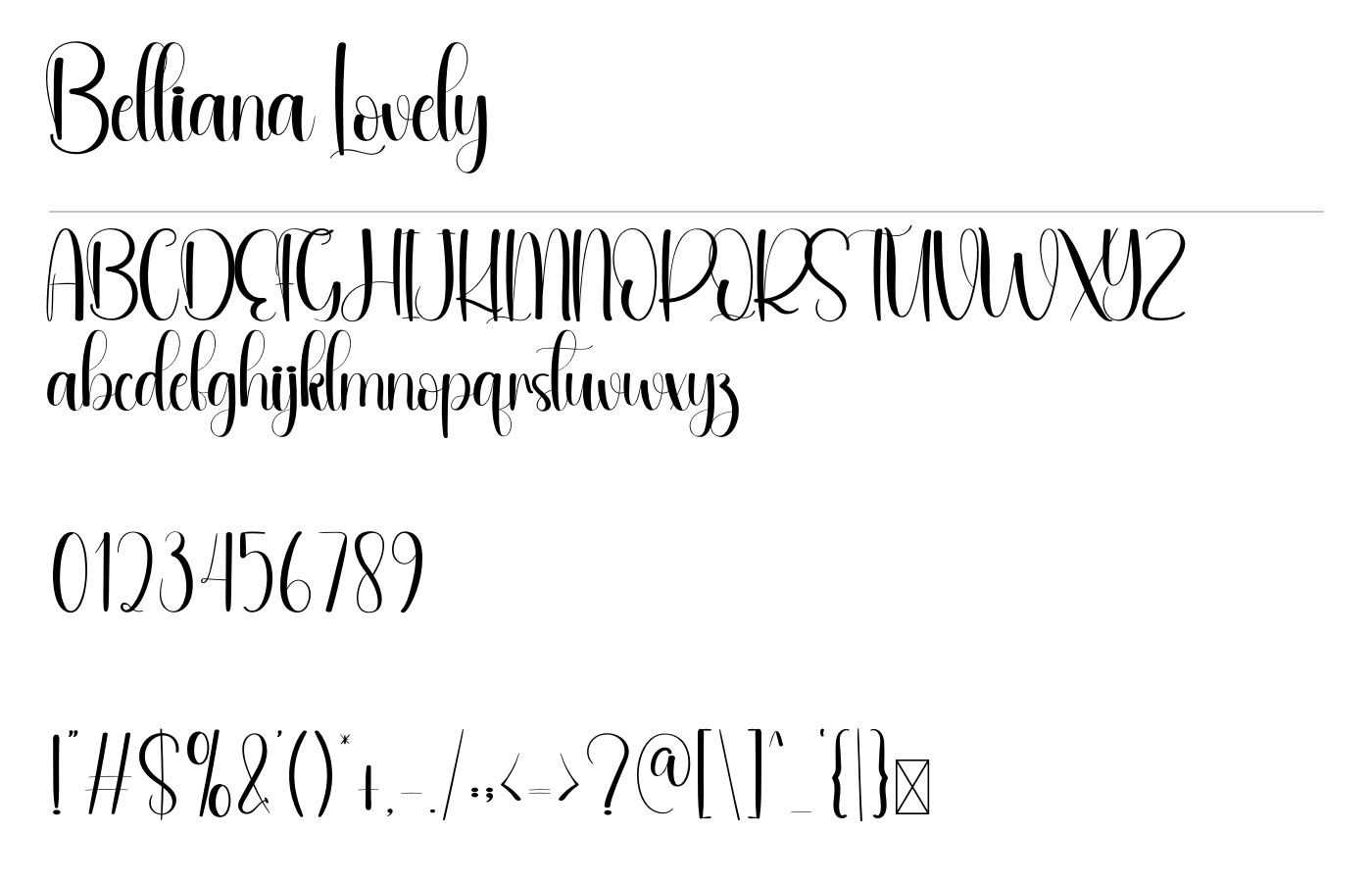
Belliana Lovely is an elegant, handwritten script font with a delicate, flowing style that blends thin and bold strokes for a graceful appearance. Its tall, narrow letterforms feature charming loops and swashes, giving it a romantic, whimsical personality ideal for feminine branding, wedding invitations, and stylish logos. This font works well in decorative headlines and creative projects where a sophisticated yet playful touch is desired.
Belliana Lovely Font
About Belliana Lovely Font